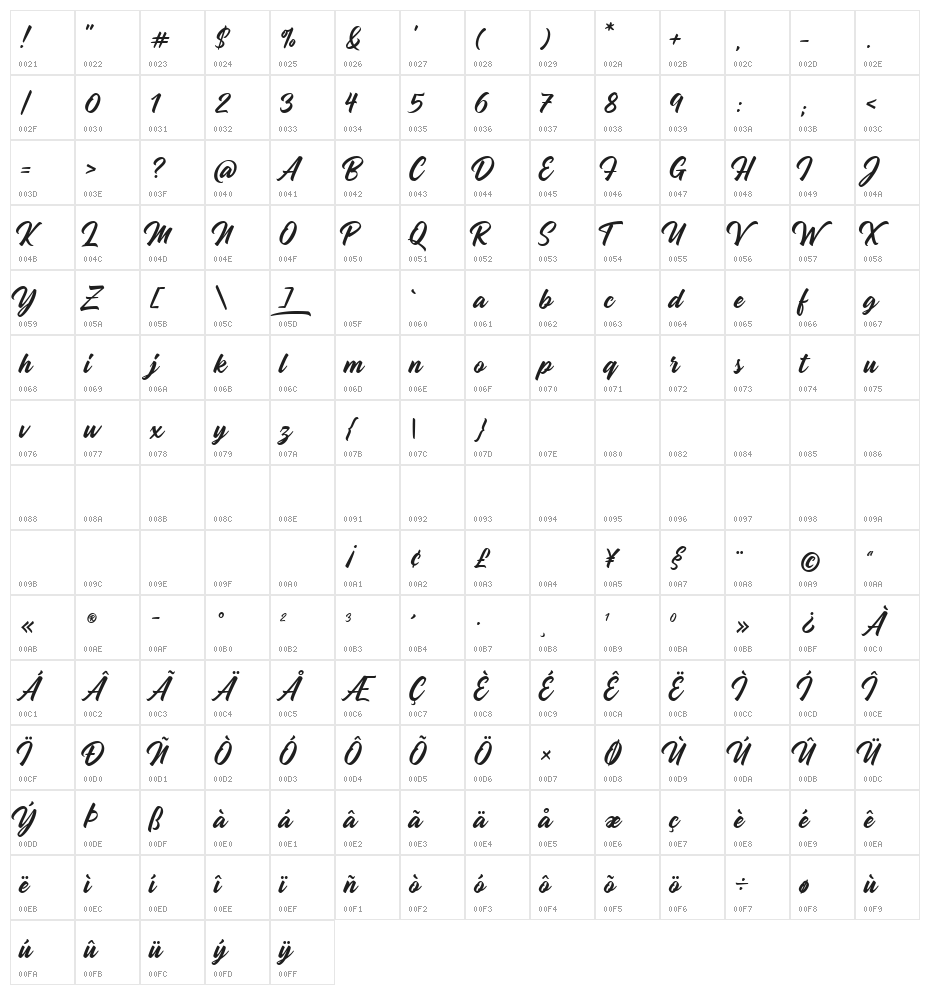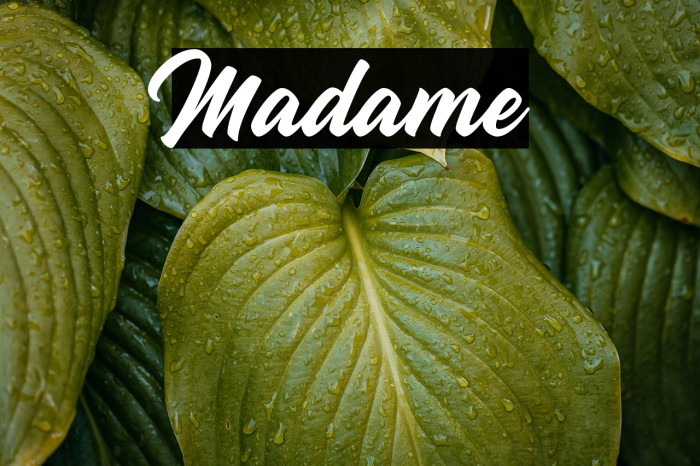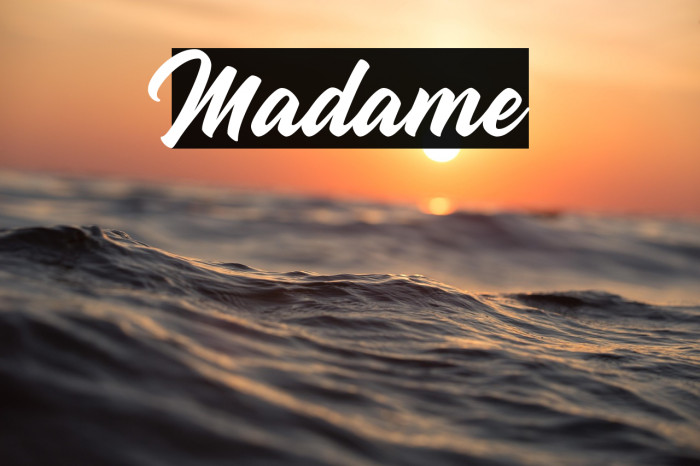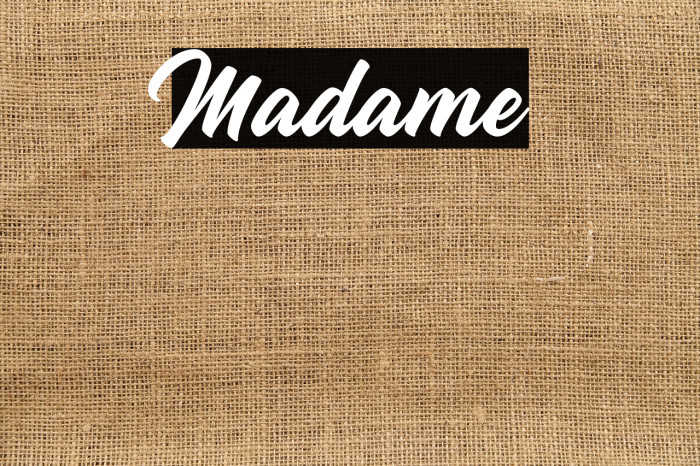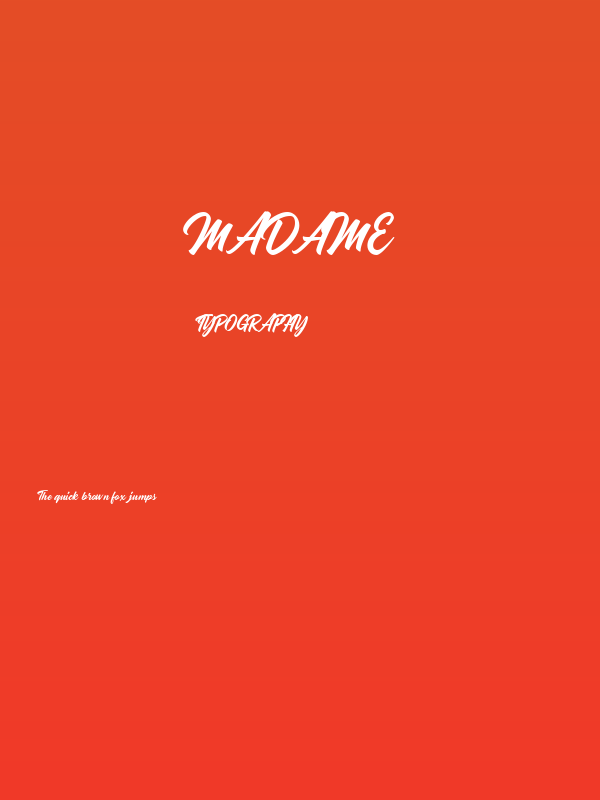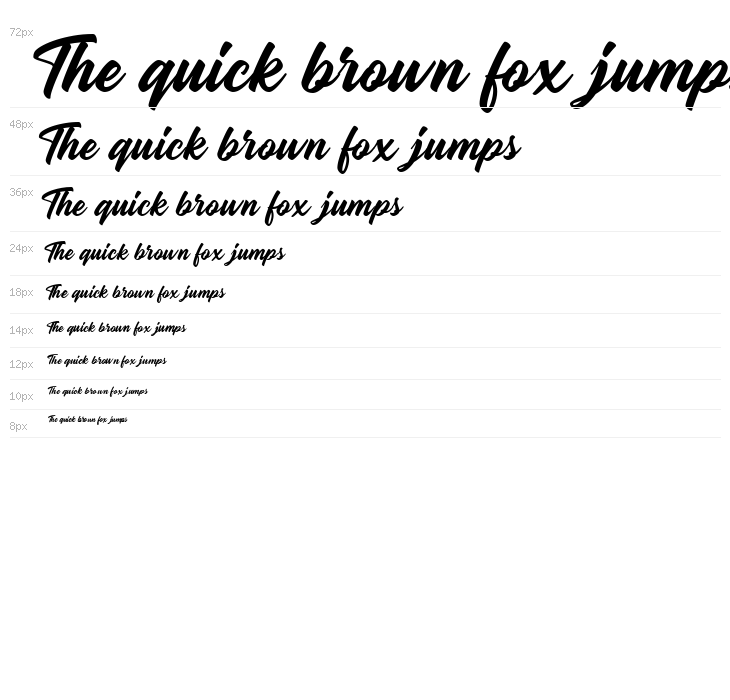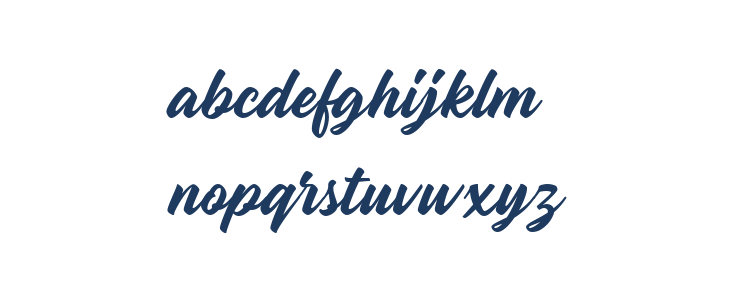
Madame Font
Madame Description
This font exudes a bold and dynamic script style, characterized by its flowing, cursive strokes that convey a sense of elegance and movement. The uppercase letters are particularly striking, with sweeping curves and a sense of rhythm that makes each character stand out. The lowercase letters maintain this fluidity, offering a harmonious balance between readability and artistic flair. The numerals and special characters are crafted with the same attention to detail, ensuring consistency across all glyphs. This font is perfect for projects that require a touch of sophistication and personality, such as invitations, branding, and editorial design.
| Proposed Projects | Ideal for invitations, branding, editorial design, and any project needing a sophisticated touch. |